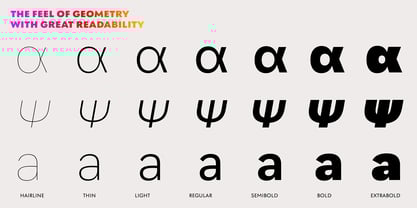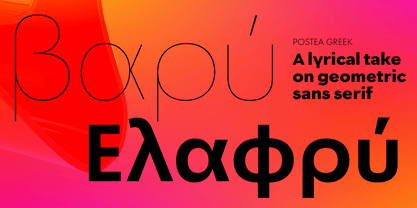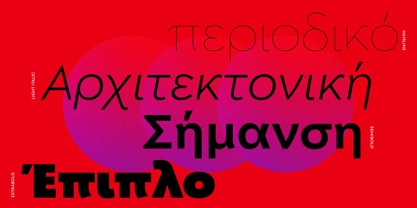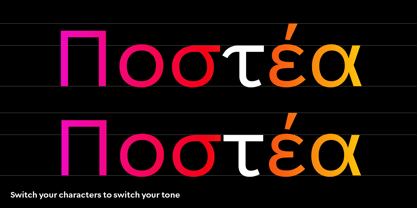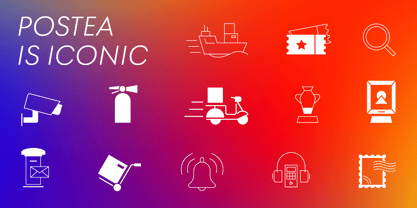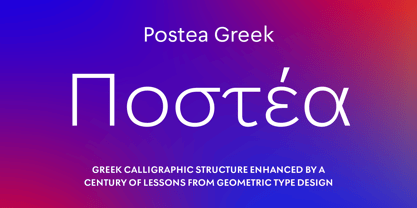
As an addition to Veronika Burian and Jose Scaglione’s Postea Latin, the Postea Greek font family is a take on geometric typefaces, reshaped with the right attributes for setting paragraphs and headings, and perfect for branding and text use. The designers for this multiscript extension are Veronika Burian, Tom Grace, and Yorlmar Campos, with consultancy by Irene Vlachou. The classic curves and purposeful details keep its individuality intact while allowing it to fit an incredible range of design needs. Because of these qualities, Postea Greek makes normal reading in paragraphs a cinch and your branding memorable.
Compared to midcentury attributes of restraint and a sparse appearance, Postea Greek’s deliberate play between character widths injects liveliness and distinction into its personality. Another nice surprise awaits: spacing for the Hairline weight is tighter for optimal use in large headings and titles, while the regular weights have the expected, slightly looser spacing for text.
Postea Greek is opinionated and has modern stylistic sets with softer, specially-designed alternate characters. Wallpaper-worthy geometric symbols, arrows, and ornaments are packed into SS01 and SS09. For the ultimate in customisation and glamour, the second and third stylistic sets are where geometric and typographic alternates are found.
Postea Greek’s 14 styles (seven upright and italic) and two variable fonts are accompanied by an allnew family of icons in three weights, for which we developed a new, easy activation. Simply bookend the desired icon name with colons (:arrowUp: :firstAid: :aid: :chargingStation:), making sure to capitalise each word after the first word, then select it and activate SS10. Icons include wayfinding, social interface, and sanitary precautions like face masks, thermometers, hand washing, and much more.
Postea Greek is resilient in the number of ways the family can be used, and its recognisable characters make it a prime selection for branding, signage, corporate typefaces, and magazines. The entire five-script Postea family (Arabic, Cyrillic, Greek, Hebrew, and Latin, now including Vietnamese) brings simplicity and impact together nicely, invoking a balance between a constructed and human feel while brushing away the dust from a century of derivatives. Beginning with midcentury virtues, Postea Greek is the rational response for text — a lyrical take on geometric sans serifs.